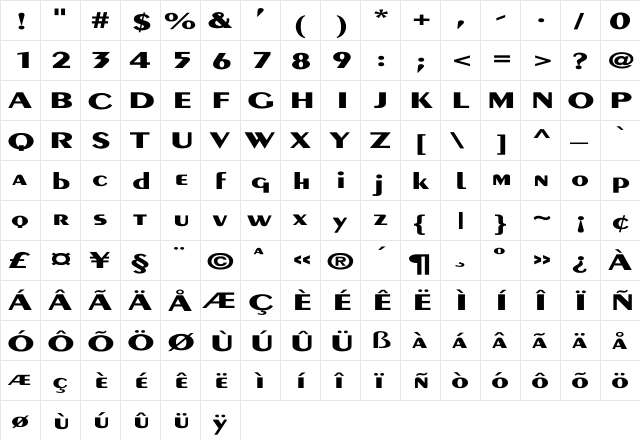
Peignot-Demi-Bold Ex Regular
Design Context for Peignot-Demi-Bold Ex Typeface
Peignot-Demi-Bold Ex offers clean, dependable letterforms without strong stylistic allegiance, making it a practical choice for designers who need flexibility. The heavy weight commands attention and anchors typographic hierarchies.